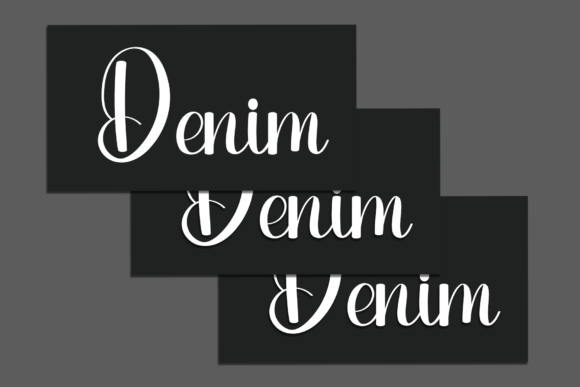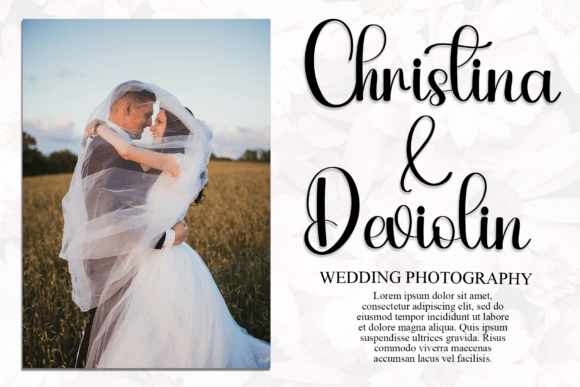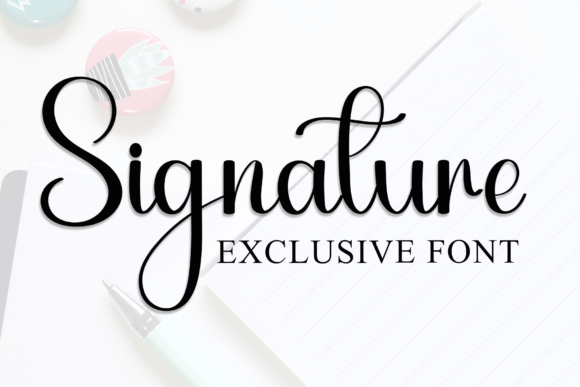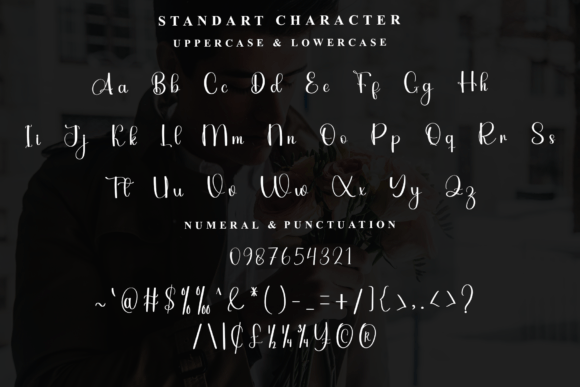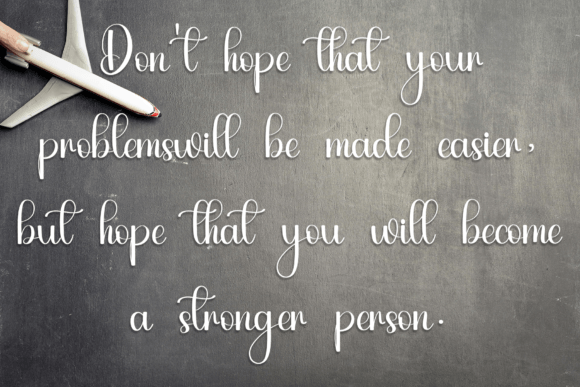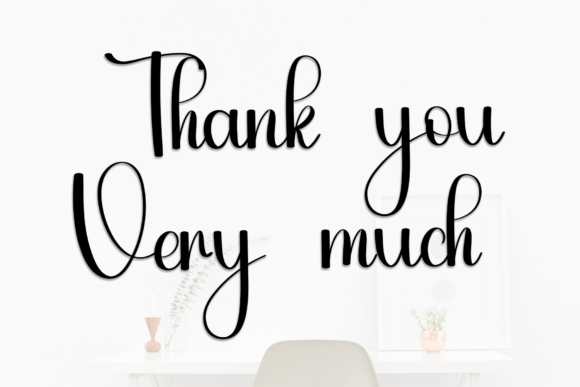
Introducing Brother Font: Elevate Your Designs with Elegance and Flair
In the world of typography, a font can make or break a design. It’s the perfect blend of style, elegance, and personality that brings a creative vision to life. If you’re a designer, crafter, or simply someone who appreciates beautiful typography, you’re in for a treat. Meet Brother Font, a delicate, elegant, and flowing handwritten font that’s about to take your designs to the next level.
The Characteristics of Brother Font
Brother Font is a stunning example of a well-crafted handwritten font. Its characters are beautifully designed, with a delicate balance that makes it versatile enough to match a wide pool of designs. Whether you’re working on a sophisticated branding project, a whimsical craft project, or a stylish website, Brother Font is the perfect companion.
One of the standout features of Brother Font is its elegant flow. The letters seem to dance across the page, creating a sense of movement and energy that’s hard to resist. This flowing quality makes it ideal for designs that require a touch of sophistication and poise.
Brother Font is PUA (Private Use Area) coded, which means you can easily access all the amazing glyphs and ligatures. For those who may not be familiar, PUA coding allows designers to access a wide range of special characters, swashes, and alternates that can add an extra layer of creativity to your designs.
With Brother Font, you can effortlessly incorporate these special characters into your work, taking your designs from ordinary to extraordinary. Whether you’re creating a beautiful quote, a stylish logo, or a captivating social media post, the PUA coded feature of Brother Font gives you the flexibility to experiment and push the boundaries of your creativity.
So, what can you create with Brother Font? The possibilities are endless! Here are a few ideas to get you started:
- Branding and Logos: Use Brother Font to create a sophisticated brand identity that exudes elegance and refinement.
- Stationery and Paper Crafts: Add a touch of whimsy and charm to your stationery, journals, and paper crafts with Brother Font.
- Web Design: Elevate your website’s typography with Brother Font, creating a beautiful and engaging user experience.
- Social Media Graphics: Make your social media posts stand out with Brother Font, adding a dash of personality and style to your content.
Why Choose Brother Font?
With so many fonts available, why choose Brother Font? Here are just a few reasons why Brother Font stands out from the crowd:
- Unique and Versatile: Brother Font’s delicate, elegant, and flowing design makes it perfect for a wide range of projects.
- Easily Accessible: The PUA coded feature makes it easy to access all the amazing glyphs and ligatures.
- High-Quality Design: Brother Font is designed with attention to detail, ensuring a high-quality finish that will elevate your designs.
In conclusion, Brother Font is a beautiful, elegant, and flowing handwritten font that’s perfect for designers, crafters, and anyone who appreciates stunning typography. With its well-balanced characters, PUA coded feature, and endless design possibilities, Brother Font is sure to become a favorite in your font collection.